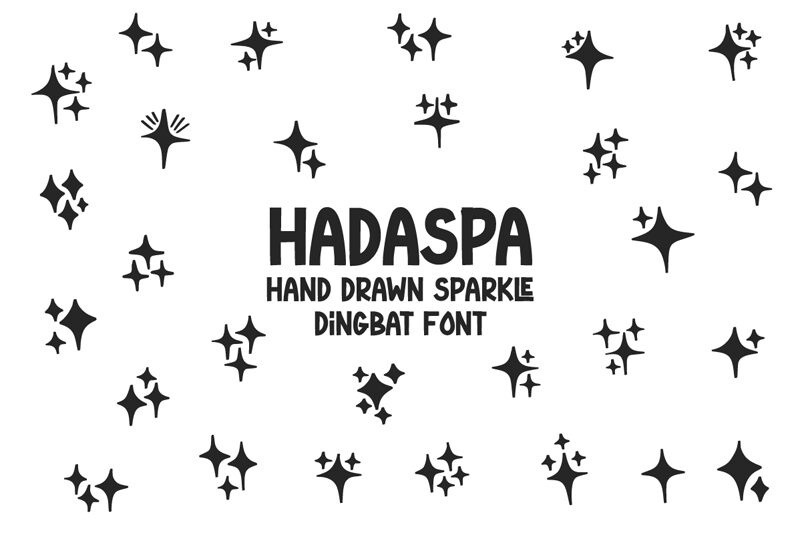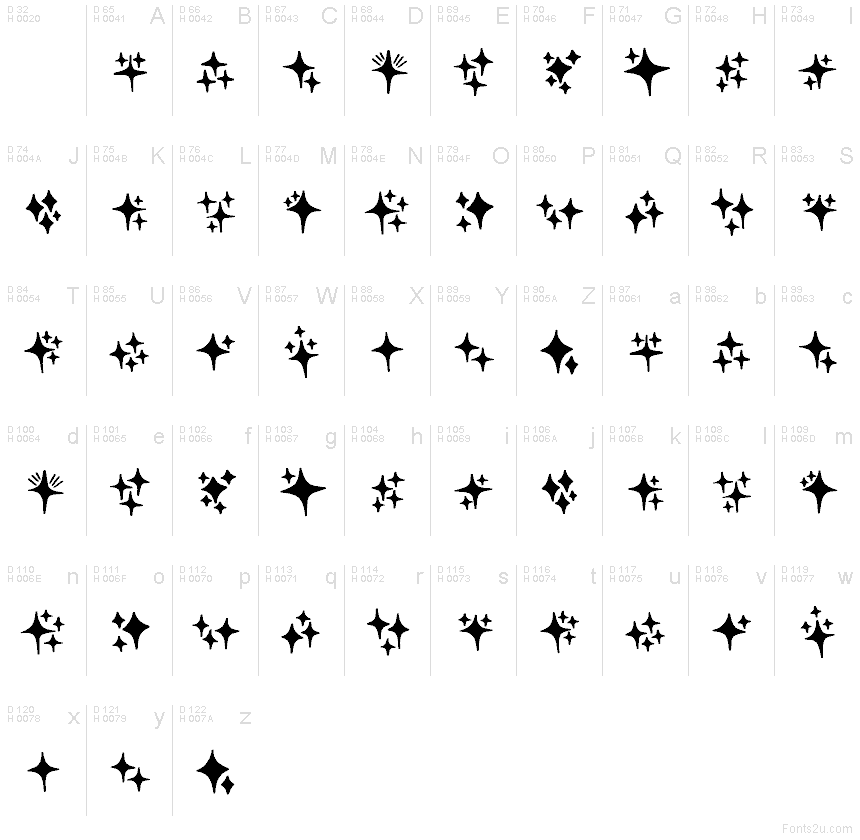
Hadaspa
Hadaspa font by Muhammad Yafinuha is a free decorative dingbats font that turns simple layouts into something a little more magical. Its inky, starburst shapes feel like hand-drawn sparkles—some soft and rounded, others stretching into lively flares—so you can add emphasis without more text or color. Drop a single glyph as a subtle accent, or scatter a cluster for a bolder, almost confetti-like shimmer around your key content.
Using Hadaspa, you can quickly dress up social media graphics, sticker designs, product packaging, digital planners, invitations, and branding touchpoints. The consistent rhythm and spacing make these icons easy to repeat in borders or patterns without looking messy. This free font pairs especially well with a clean sans serif—let the lettering do the talking and use Hadaspa as the bright, tactile highlight that pulls the eye.